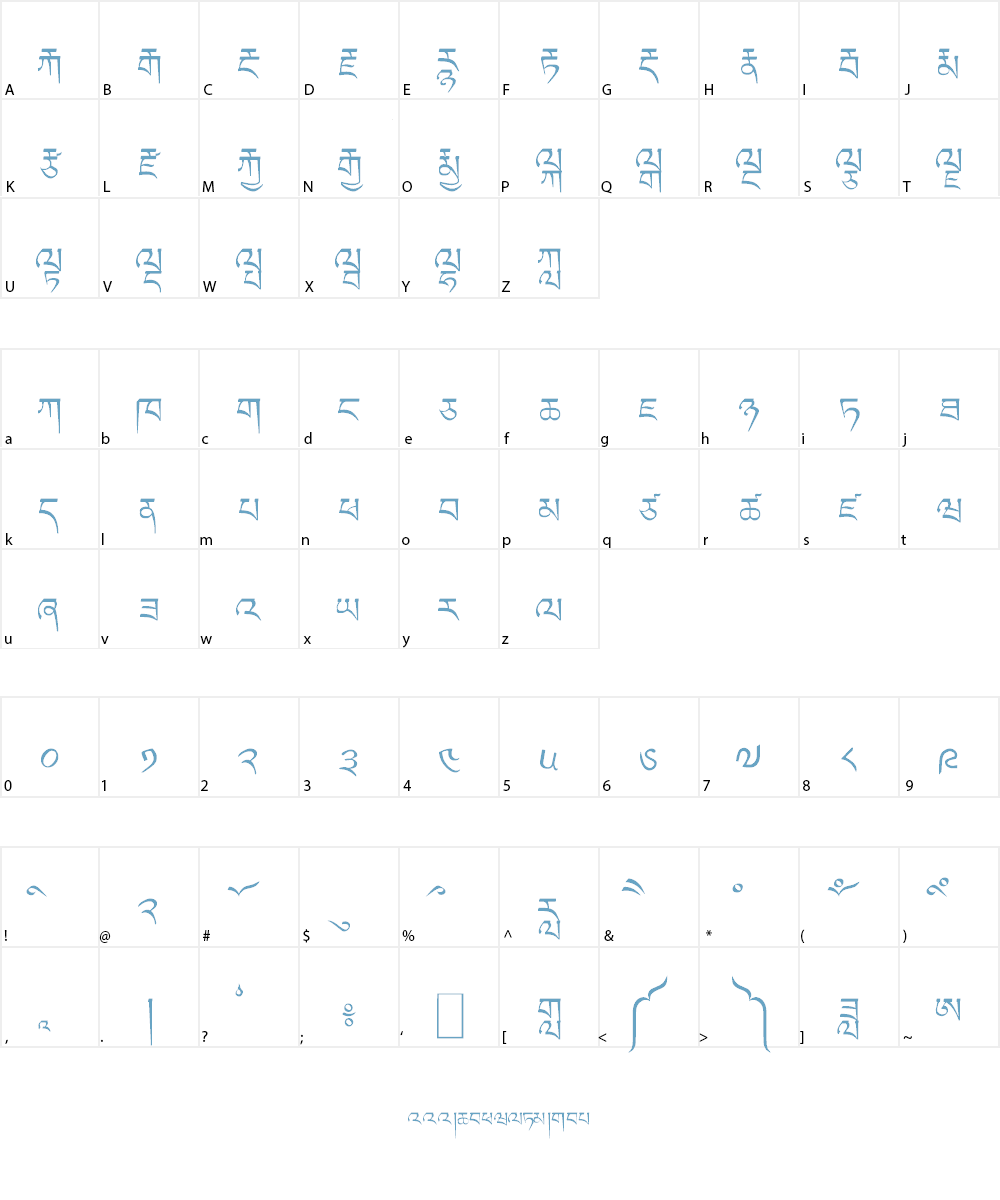
This font came out of the devanagri script, and was used mostly in the Himalayan mountains. Today its the official script of Tibet and Bhutan.Enjoy the font!